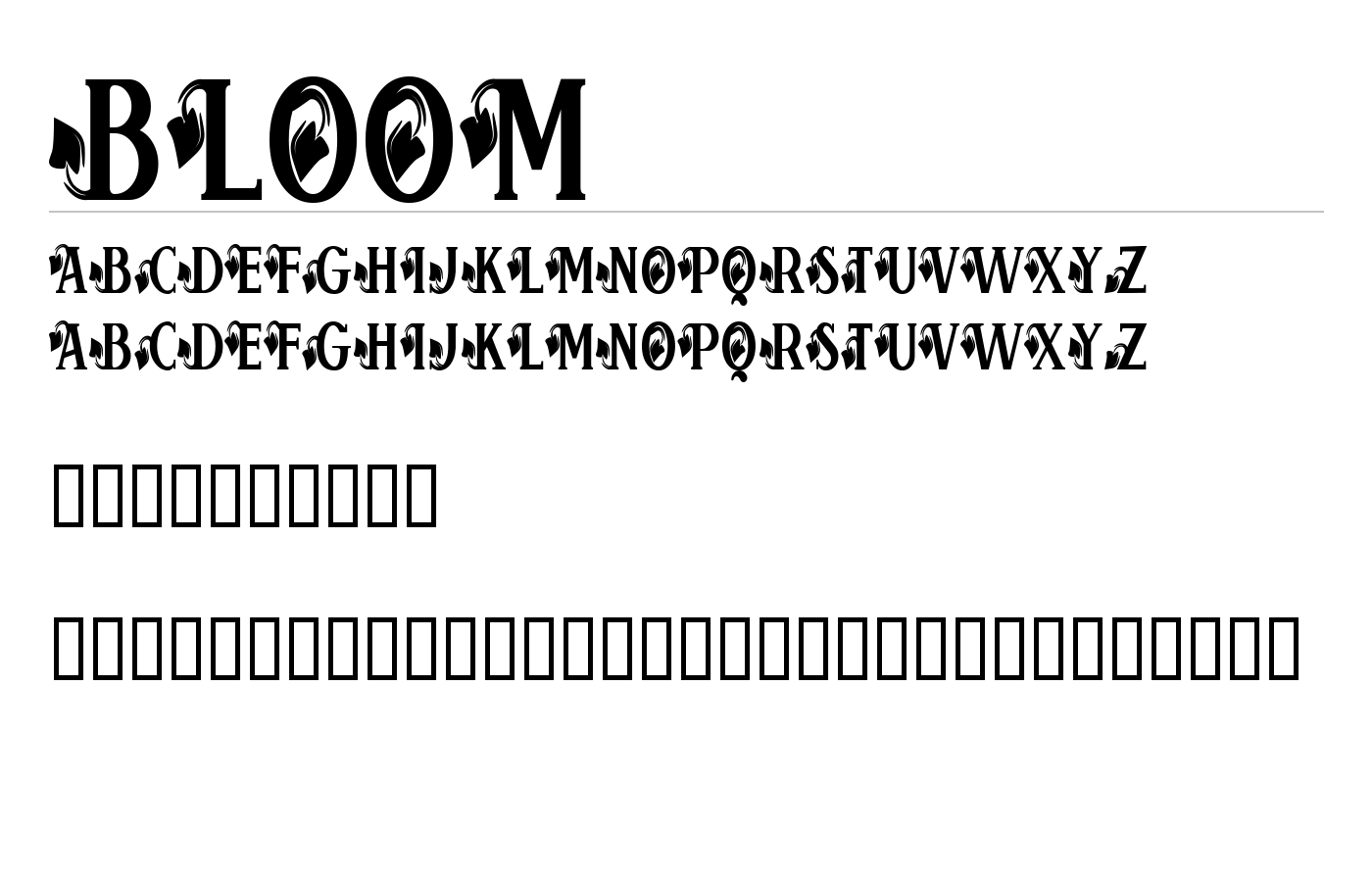
Bloom Font is a decorative serif typeface with a strong vintage flair, characterized by its bold weight and ornate floral embellishments seamlessly integrated into each letterform. Its high contrast strokes and unique botanical details make it ideal for eye-catching branding, packaging, and headlines where a touch of elegance and artistic charm is desired. This font works best in design projects that seek a distinctive, nature-inspired look with a classic yet playful personality.
Bloom Font